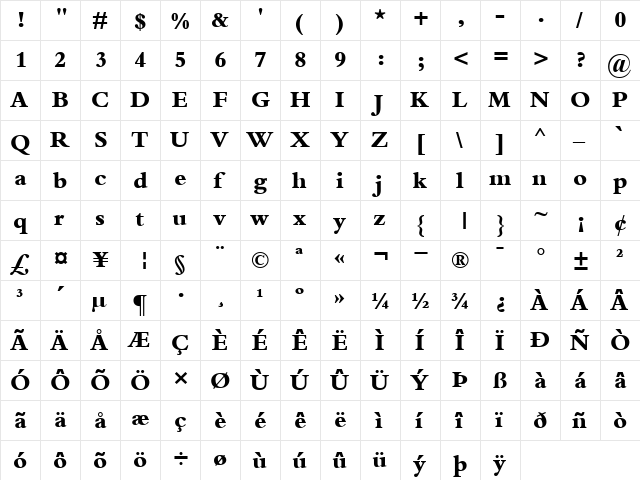
Bembo ExtraBold
Design Context for Bembo Typeface
Bembo takes a measured approach to typography — its balanced proportions and neutral character make it a reliable workhorse for both digital and print work. Its bold stroke weight gives it real presence on the page.